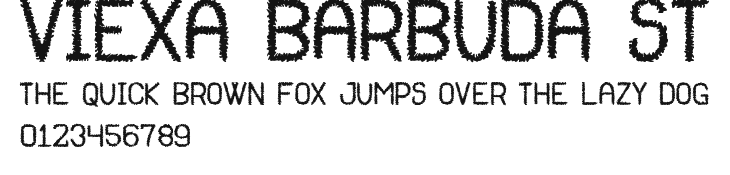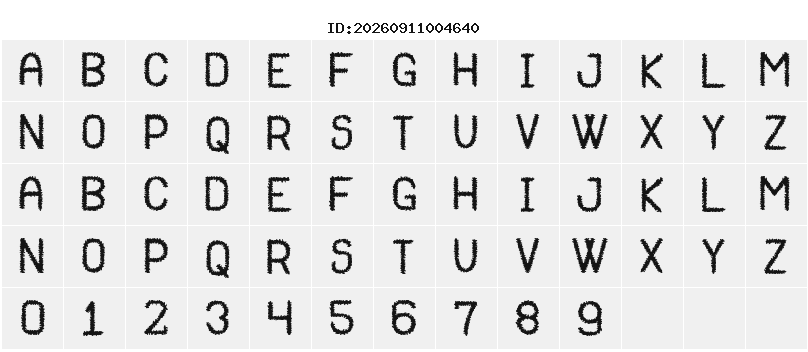
Viexa Barbuda St Preview
• Font Name: Viexa Barbuda St
• Font ID: Viexa Barbuda St:Version 1.00
• Full Font Name: Viexa Barbuda St
• PostScript Name: ViexaBarbudaSt
• Character Count: 243
• Designer: This font is an original work of southype dot com
About Viexa Barbuda St.ttf
Viexa Barbuda St.ttf is a modern, elegant sans-serif font designed for ultimate readability and visual harmony. Perfect for branding, headlines, web design, and print materials.